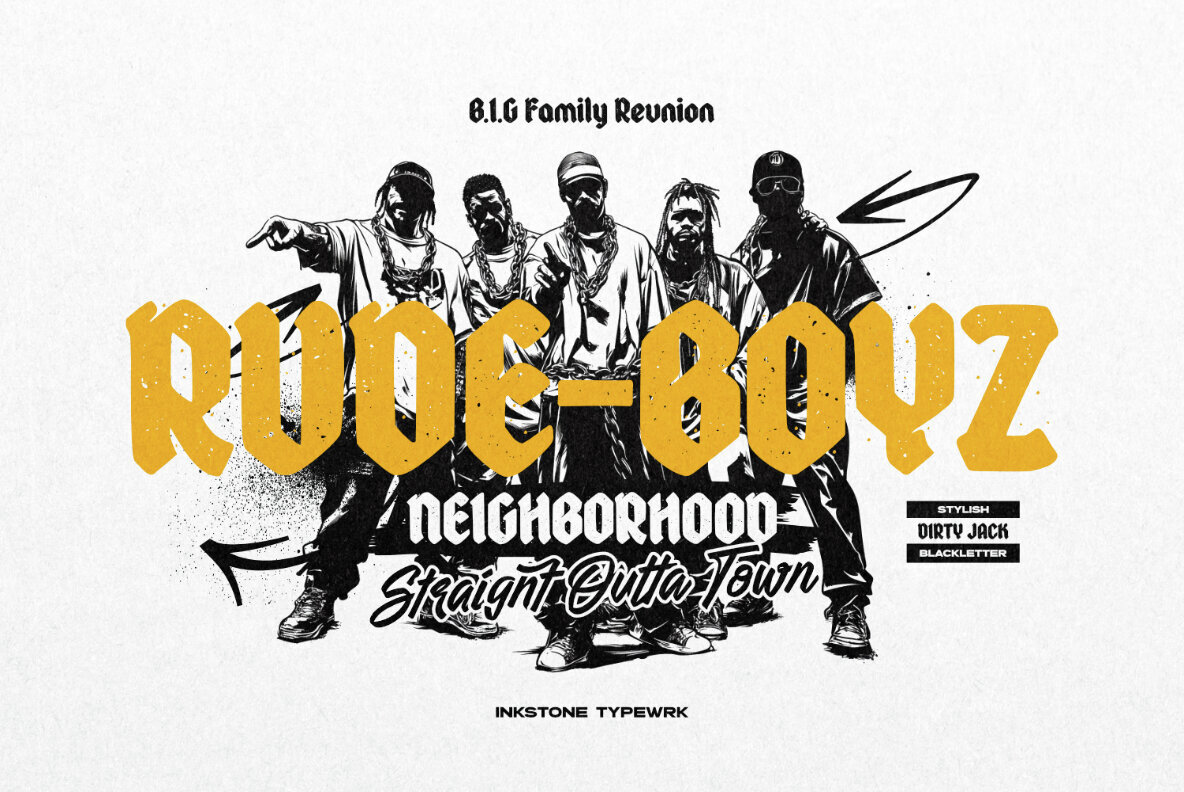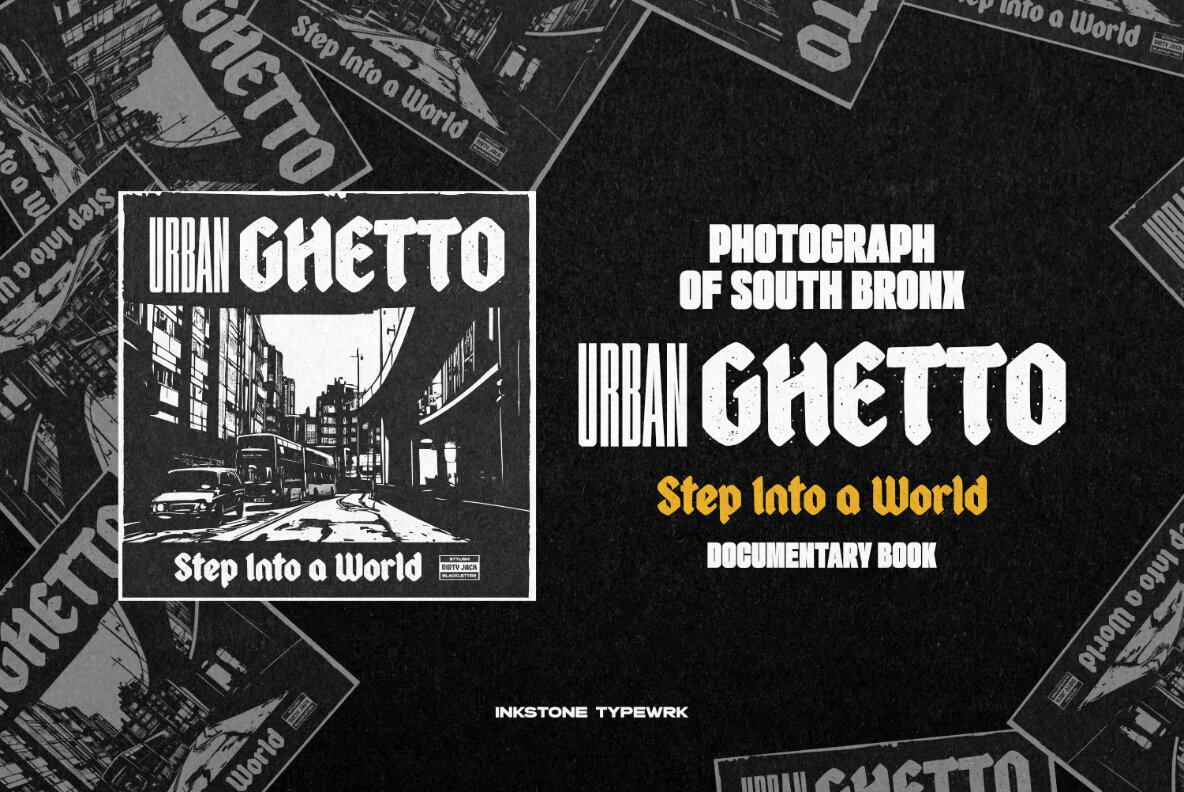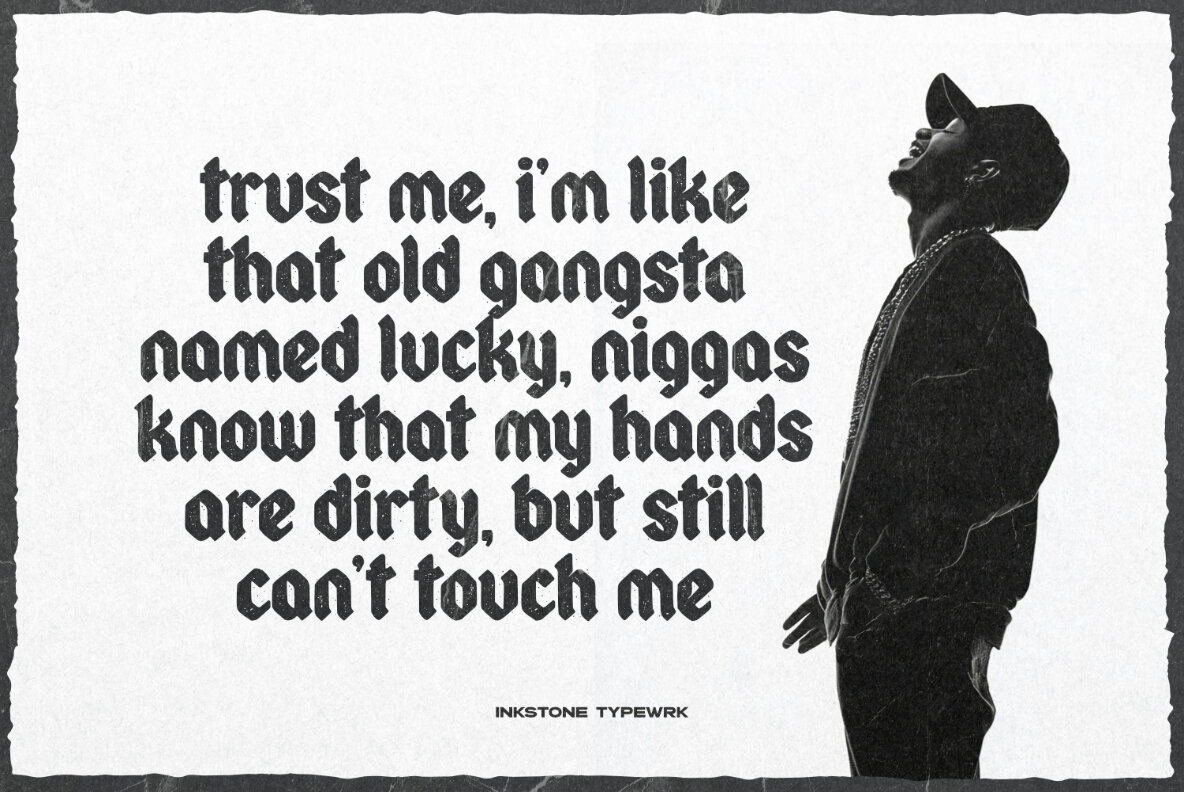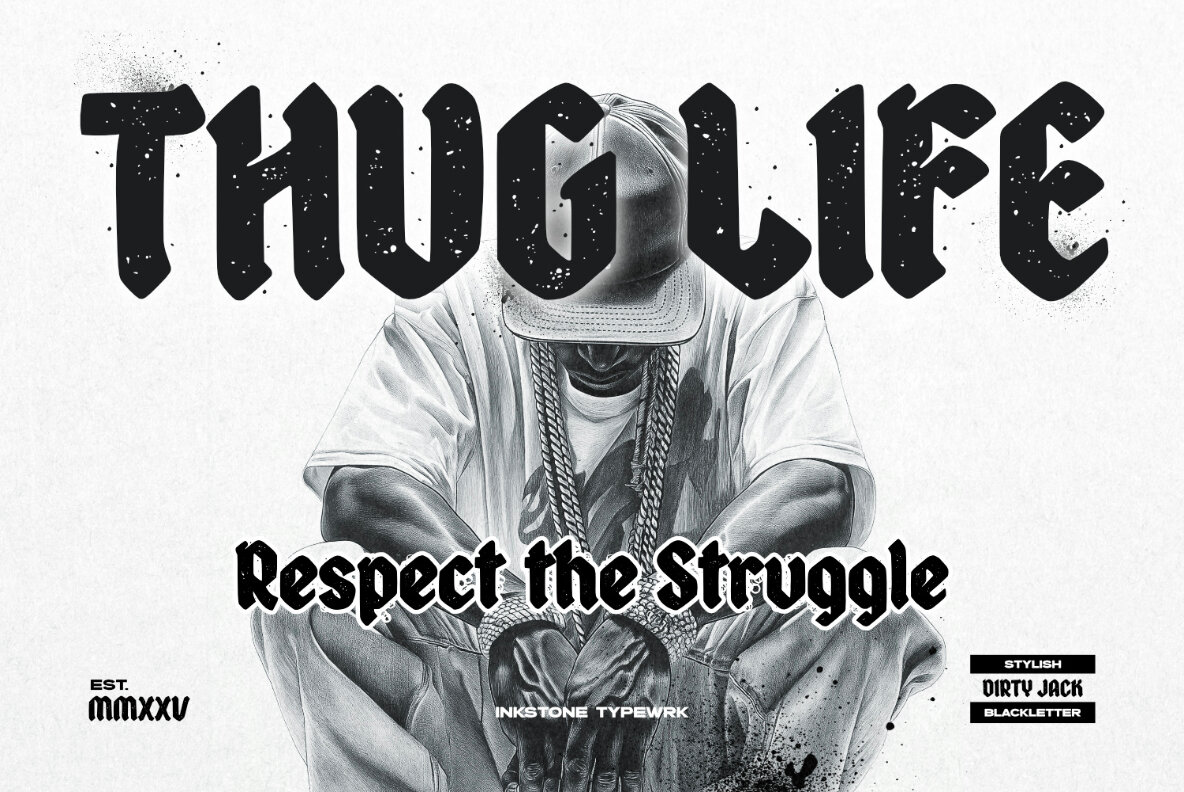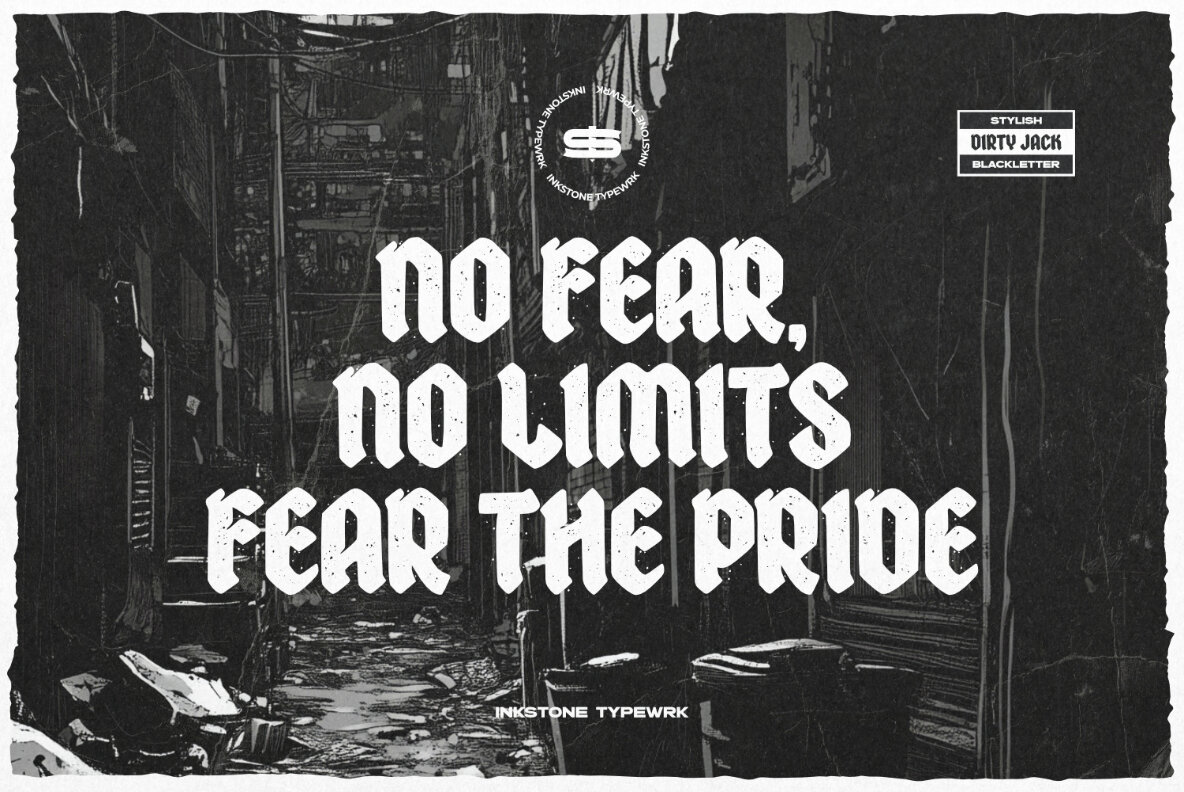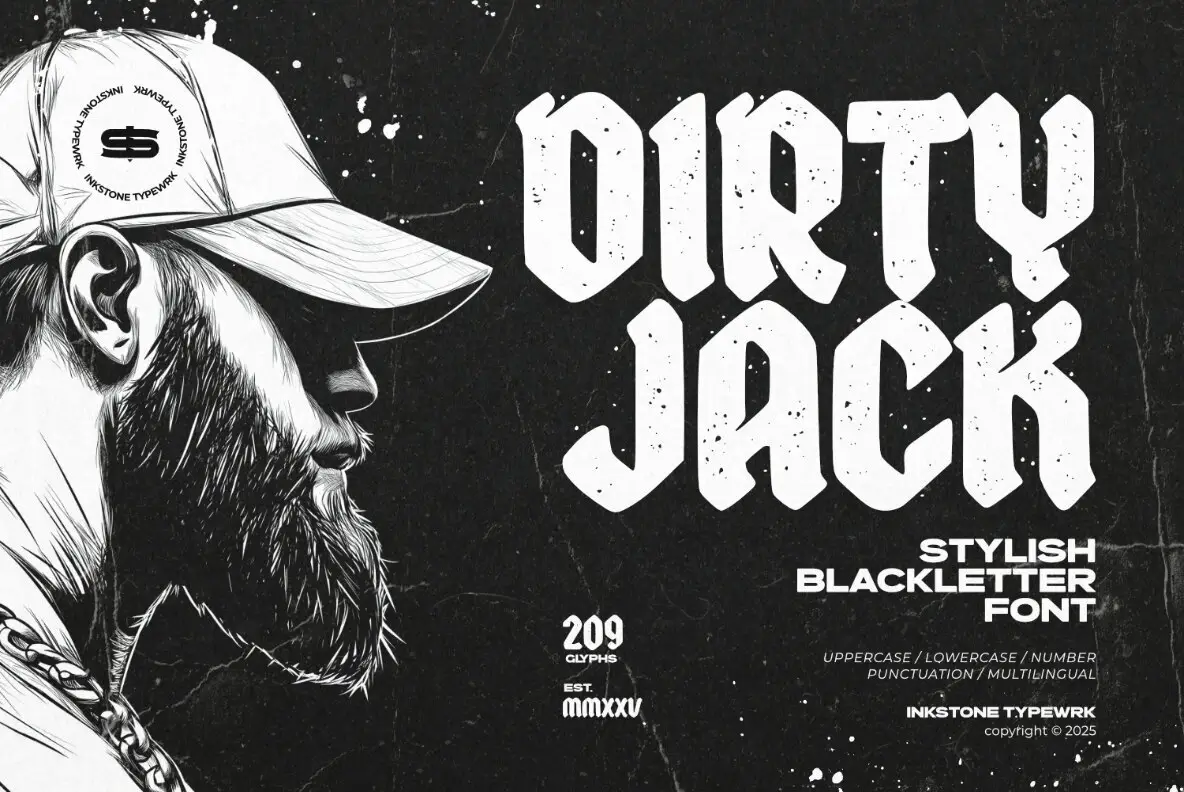
Dirty Jack - Stylish Blackletter Font
Meet Dirty Jack, the blackletter font with a rough, urban edge. This isn’t your grandpa’s gothic type—it’s a bold, hipster-approved twist on classic blackletter styling, built for streetwear, edgy layouts, and rebellious headlines that demand attention.
With gritty textures and stylish curves, Dirty Jack thrives in urban branding, bold typography, and raw, unfiltered design. Whether you're crafting a badass logo, a street-style poster, or a high-impact editorial layout, this font brings the attitude and energy to make your work stand out.